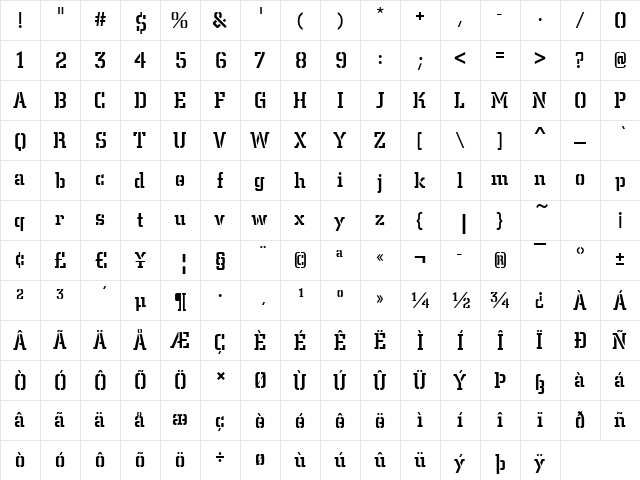
Centrum-Stencil-Medium Regular
Design Context for Centrum-Stencil-Medium Typeface
Centrum-Stencil-Medium has the rough pragmatism of spray-painted stencil signage, adding a raw, street-level authenticity to designs.
Ideal for industrial branding, streetwear, military-adjacent aesthetics, and urban signage projects.
Pro Tip: Pair Centrum-Stencil-Medium with raw, utilitarian design elements — exposed concrete textures, flat colour, and minimal ornamentation suit it well.